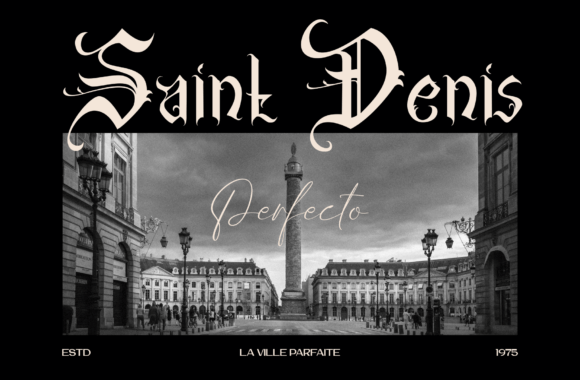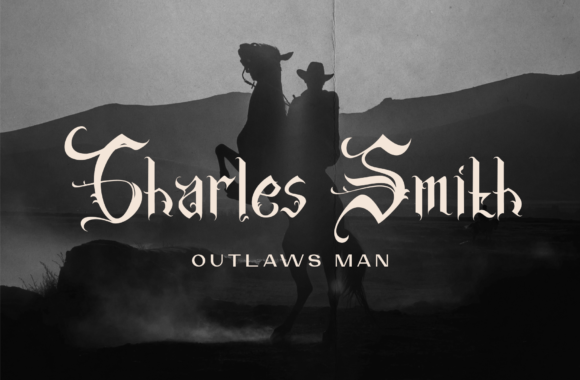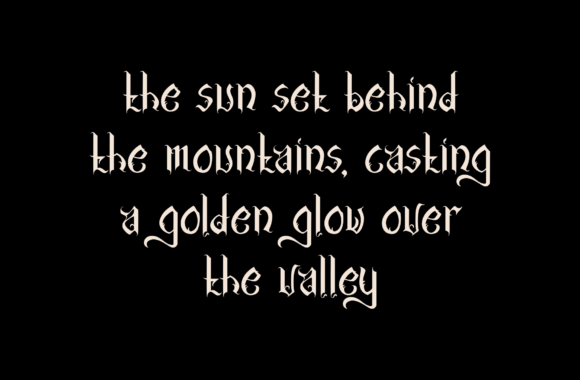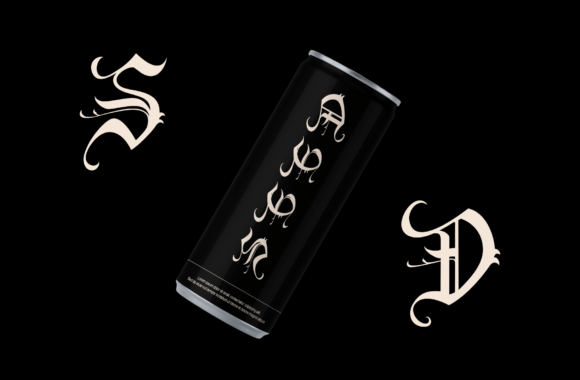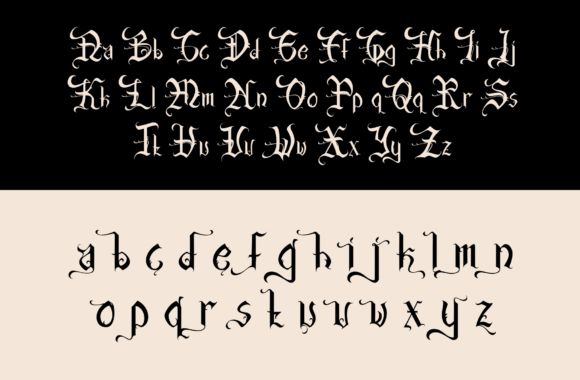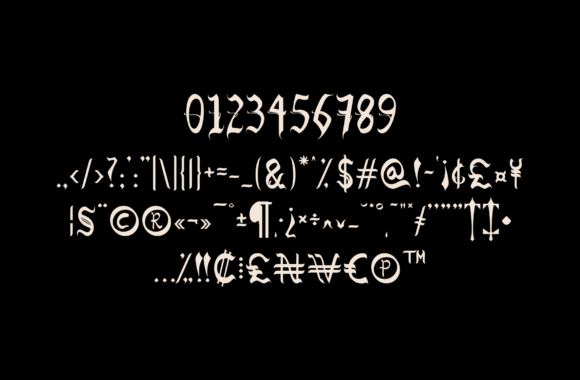
Introducing Bersavet Font: A Stylish and Decorative Blackletter Typeface
In the world of typography, a new font has emerged that is sure to capture the attention of designers and crafters alike. Meet Bersavet, a stylish and decorative blackletter typeface that boasts a distinct fancy theme. This font draws inspiration from traditional blackletter styles, but with a decorative flair that makes it particularly suitable for tattoo designs, branding, and other artistic applications.
Unique Features of Bersavet Font
One of the defining features of Bersavet font is the presence of alternative characters in the lowercase set. This means that users have additional versatility and creative freedom in their designs, allowing them to experiment with different styles and variations. The ornate details and bold strokes give Bersavet an edgy and impactful appearance, making it perfect for those seeking a strong, artistic typeface with a unique and expressive personality.
Inspiration from Traditional Blackletter Styles
Bersavet font draws inspiration from traditional blackletter styles, which have been popular for centuries. Blackletter typography originated in the Middle Ages and is characterized by its dramatic and ornate letterforms. Over time, blackletter styles have evolved, and Bersavet is a modern take on this classic typography. The font’s designer has skillfully blended traditional elements with a modern twist, resulting in a unique and stylish typeface.
Perfect for Tattoo Designs and Branding
Bersavet font is particularly suitable for tattoo designs, branding, and other artistic applications. The font’s bold and edgy appearance makes it perfect for creating striking and memorable designs. Tattoo artists, in particular, will appreciate the font’s unique and decorative style, which can add an extra layer of meaning and personality to their designs. Similarly, brand owners can use Bersavet to create eye-catching logos and marketing materials that stand out from the crowd.
Alternative Characters for Added Versatility
The presence of alternative characters in the lowercase set is a standout feature of Bersavet font. This means that users can experiment with different styles and variations, creating unique and customized designs. The alternative characters can be used to add an extra layer of personality to a design, making it more engaging and memorable. Whether you’re a designer, crafters, or artist, Bersavet font offers you the creative freedom to experiment and push the boundaries of typography.
Ornate Details and Bold Strokes
The ornate details and bold strokes of Bersavet font give it an edgy and impactful appearance. The font’s bold strokes create a sense of drama and emphasis, making it perfect for creating striking headlines and titles. The ornate details, on the other hand, add a level of sophistication and elegance, making Bersavet suitable for a wide range of design applications.
In conclusion, Bersavet font is a stylish and decorative blackletter typeface that is sure to capture the attention of designers and crafters alike. With its unique features, inspiration from traditional blackletter styles, and perfect blend of ornate details and bold strokes, Bersavet is the perfect choice for tattoo designs, branding, and other artistic applications. Whether you’re looking to create striking headlines, memorable logos, or customized designs, Bersavet font offers you the creative freedom to experiment and push the boundaries of typography.
Design Tips and Inspiration
To get the most out of Bersavet font, here are some design tips and inspiration to keep in mind:
• Experiment with different styles and variations using the alternative characters.
• Use Bersavet font to create striking headlines and titles that grab attention.
• Combine Bersavet font with other typography styles to create a unique and eye-catching design.
• Use Bersavet font for tattoo designs, branding, and other artistic applications.
With Bersavet font, the possibilities are endless. Whether you’re a designer, crafters, or artist, this stylish and decorative blackletter typeface is sure to inspire you to create something truly unique and memorable.